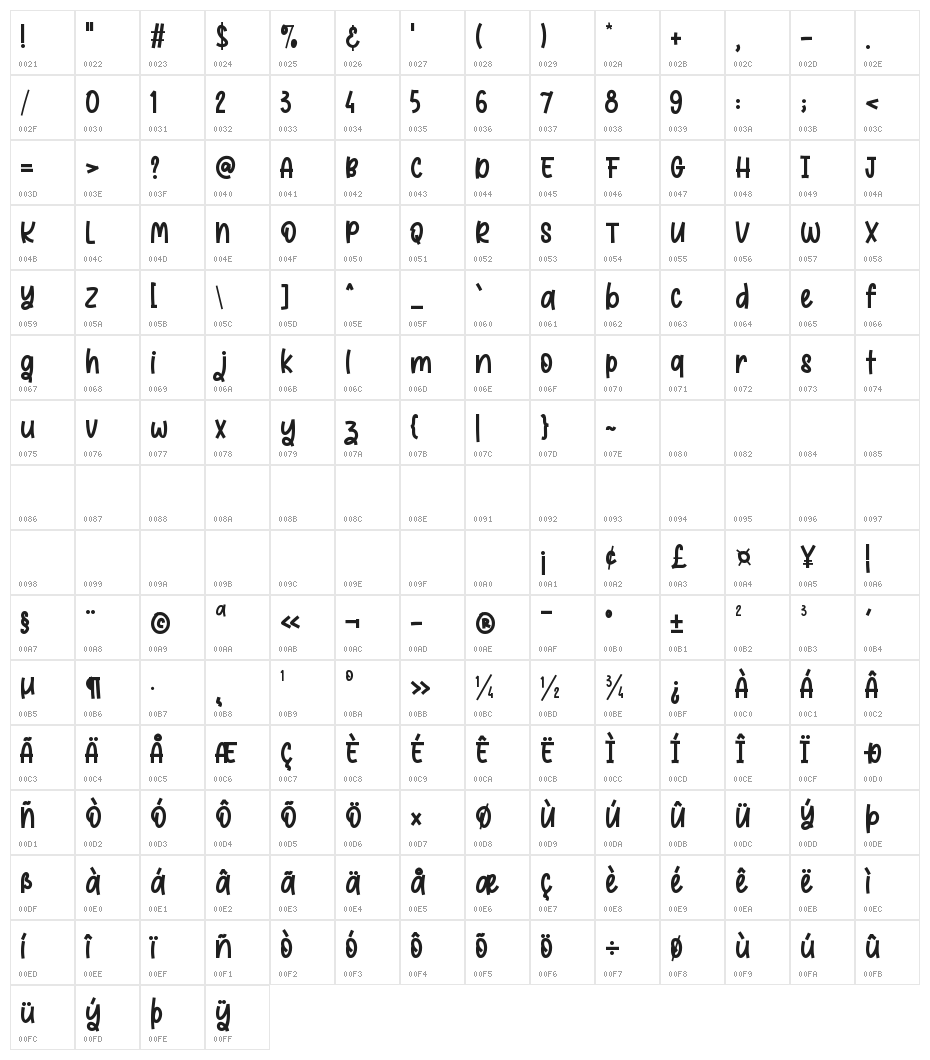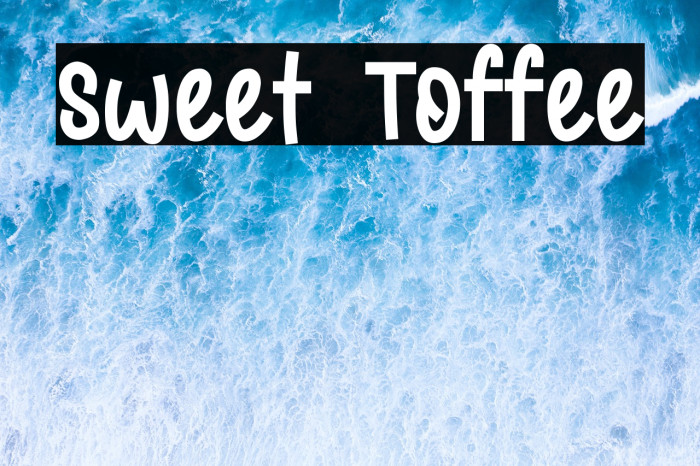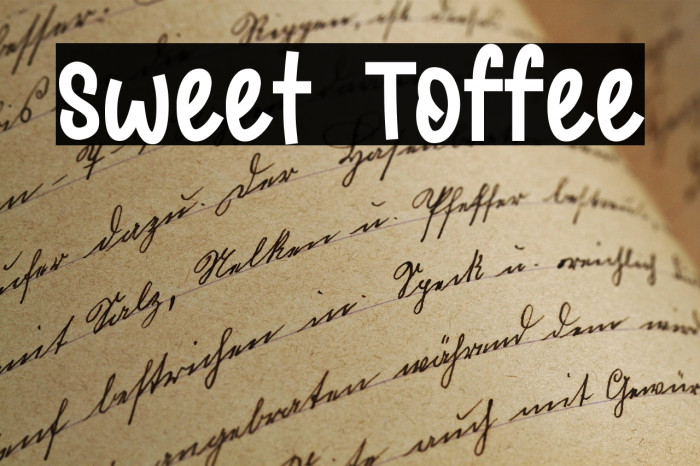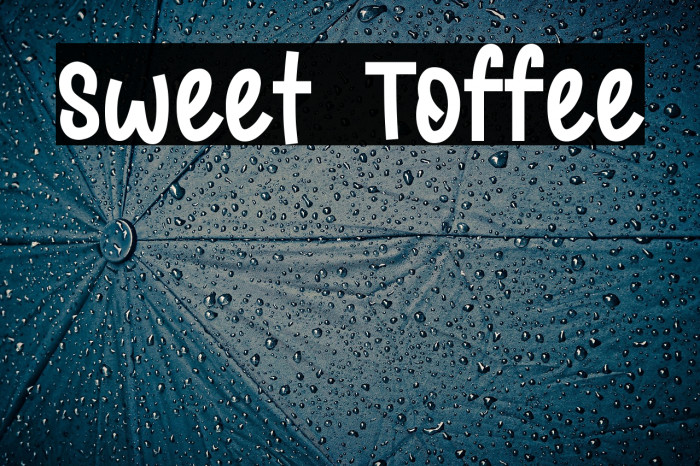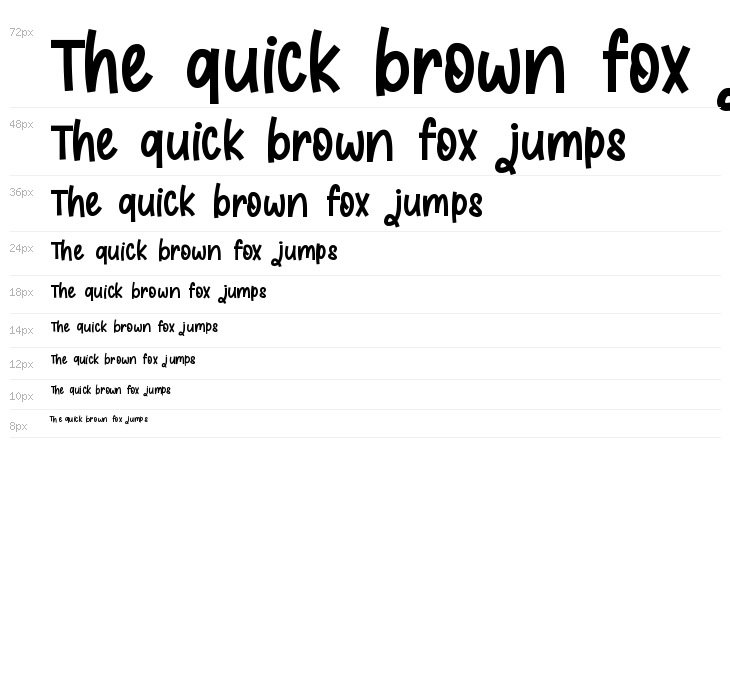
Sweet Toffee Font
Sweet Toffee Description
A playful and bold handwritten font with a casual and friendly appearance, featuring rounded edges and a slightly irregular baseline.
| Overall Style | Playful, Casual |
| Proposed Projects | Greeting cards, children's books, playful branding. |